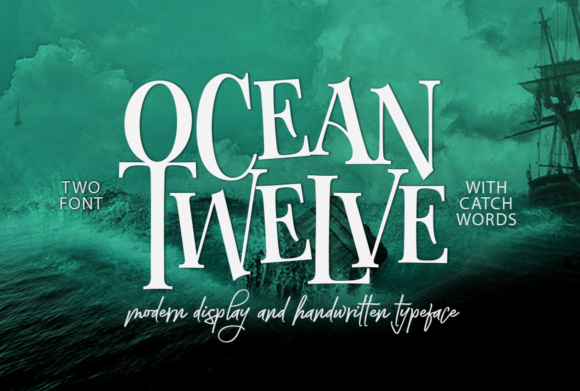
Embrace the Enchantment of Ocean Twelve Font: A Timeless Masterpiece for Unique Designs
In a world of ordinary, discover the extraordinariness that awaits you in the captivating Ocean Twelve Font family. Crafted with meticulous attention to detail by the skilled hands of joelmaker, this font duo harmoniously blends vintage aesthetics with a contemporary touch. Inspired by the charm of posters, literary covers, and CD masterpieces of bygone eras, Ocean Twelve captures the essence of artistry with a dash of nostalgia.
Ocean Twelve is more than just a font; it's a portal to a realm of design possibilities. Its display font exudes an innate sense of elegance, with characters that mimic the hand-drawn artistry of skilled calligraphers. Each letter dances across the canvas, carrying with it a tale of craftsmanship and authenticity. The irregular height of the font adds a touch of character, ensuring that your designs stand out from the crowd.
The Ocean Twelve Script font, on the other hand, is a symphony of graceful curves and delicate strokes. Its handwritten nature evokes a sense of intimacy and personalization, making it perfect for adding a touch of charm to invitations, greeting cards, and personal notes. The harmonious pairing of these two fonts creates a design synergy that's sure to leave a lasting impression.
But Ocean Twelve isn't just visually stunning; it's also incredibly versatile. Whether you're a seasoned designer or a creative enthusiast, this font family caters to a wide range of design projects. From eye-catching posters and social media graphics to elegant branding and packaging designs, Ocean Twelve seamlessly adapts to your creative vision.
With Ocean Twelve, you can craft designs that transport your audience back in time, evoking a sense of nostalgia and wonder. Its vintage charm adds a touch of sophistication to any project, while its modern interpretation ensures that your designs remain relevant and contemporary.
So, dive into the depths of creativity with Ocean Twelve Font. Let its beauty and versatility inspire your next design masterpiece. Seize the opportunity to embrace the extraordinary and leave an enduring mark on the world of design.